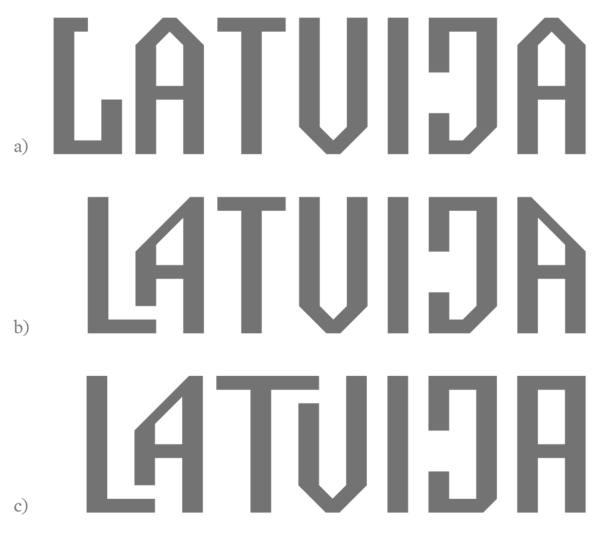
Latvian Fonts: Exploring The World Of Latvian Typefaces In 2023
In the world of typefaces and typography, Latvian fonts have been a source of fascination for many years. From their distinct and intricate letterforms to their bold and intricate design, these fonts remain popular among designers and typographers alike. As the world of type evolves, Latvian fonts continue to stand out as a unique and beautiful style of type. In this article, we'll take a look at the world of Latvian fonts in 2023 and explore the many options available.
History of Latvian Fonts
Latvian fonts have been around for centuries, with the earliest examples appearing in the 17th century. The typeface is known for its intricate and ornate letterforms, with bold lines and curves that make it stand out. During the 19th century, the Latvian font style began to gain popularity, with many typefoundries creating versions of the typeface. This popularity only increased in the 20th century, with more foundries producing versions of the font. By the 21st century, the Latvian font style had become a staple of the typeface world.
Modern Uses of Latvian Fonts
Today, Latvian fonts are still used for a variety of purposes. The ornate letterforms and bold lines make them well-suited for headlines and titles, while the intricate curves and details make them perfect for logos and branding. The unique letterforms are also popular for display type, as they help to create a distinct and memorable visual identity. Latvian fonts are also used for body copy, with their distinctive aesthetics making them stand out from more standard typefaces.
Popular Latvian Fonts in 2023
In 2023, some of the most popular Latvian fonts include Latvian Gothic, Riga Sans, and Riga Bold. Latvian Gothic is a classic typeface, with its bold lines and intricate letterforms making it perfect for headlines and logos. Riga Sans is a modern take on the classic Latvian Gothic style, with its strong, geometric letterforms and bold lines making it stand out. Riga Bold is another modern take, with its strong letterforms and geometric details creating a strong and memorable visual identity.
Latvian fonts are a unique and beautiful style of typeface that have been around for centuries. From their ornate letterforms and bold lines to their intricate curves and details, Latvian fonts remain popular in the world of typefaces. In 2023, some of the most popular Latvian fonts include Latvian Gothic, Riga Sans, and Riga Bold. These typefaces are perfect for headlines, logos, and display type, helping to create a strong and memorable visual identity. If you're looking for a unique and beautiful style of typeface, Latvian fonts are definitely worth exploring.